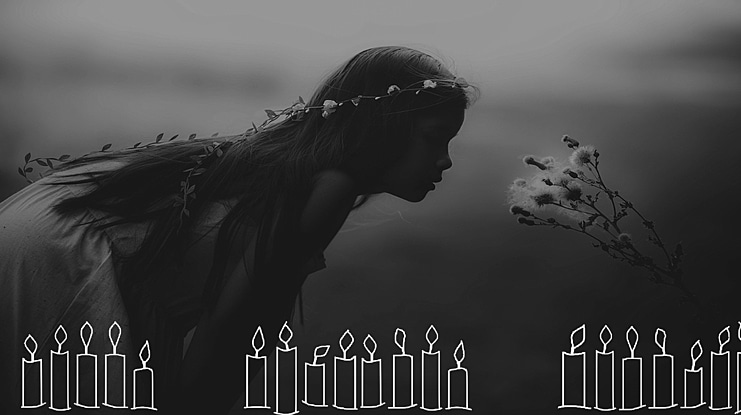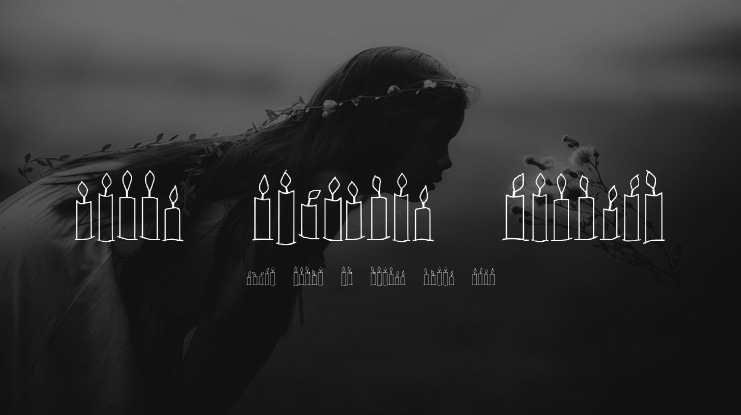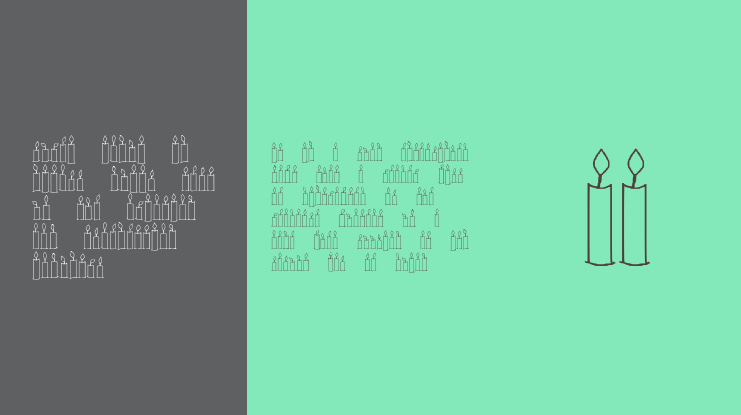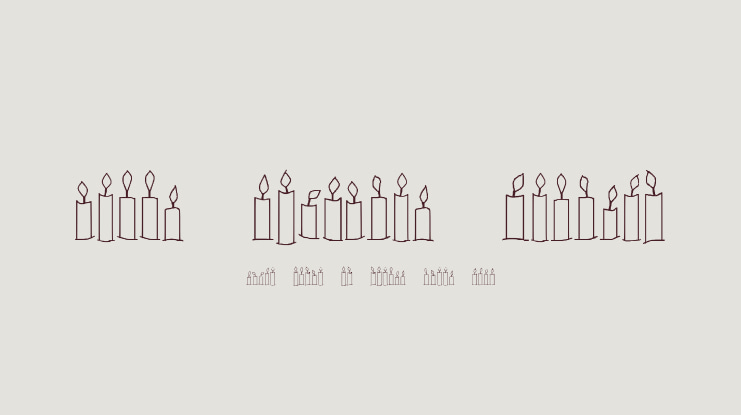
Happy Birthday Candles Font
This fun Happy Birthday Candles font can be coloured in via the Paintbrush program and also enhanced via the Word Text Art tool inside a Word document. Free for Personal Use. $10 to use Commercially. Thank you!